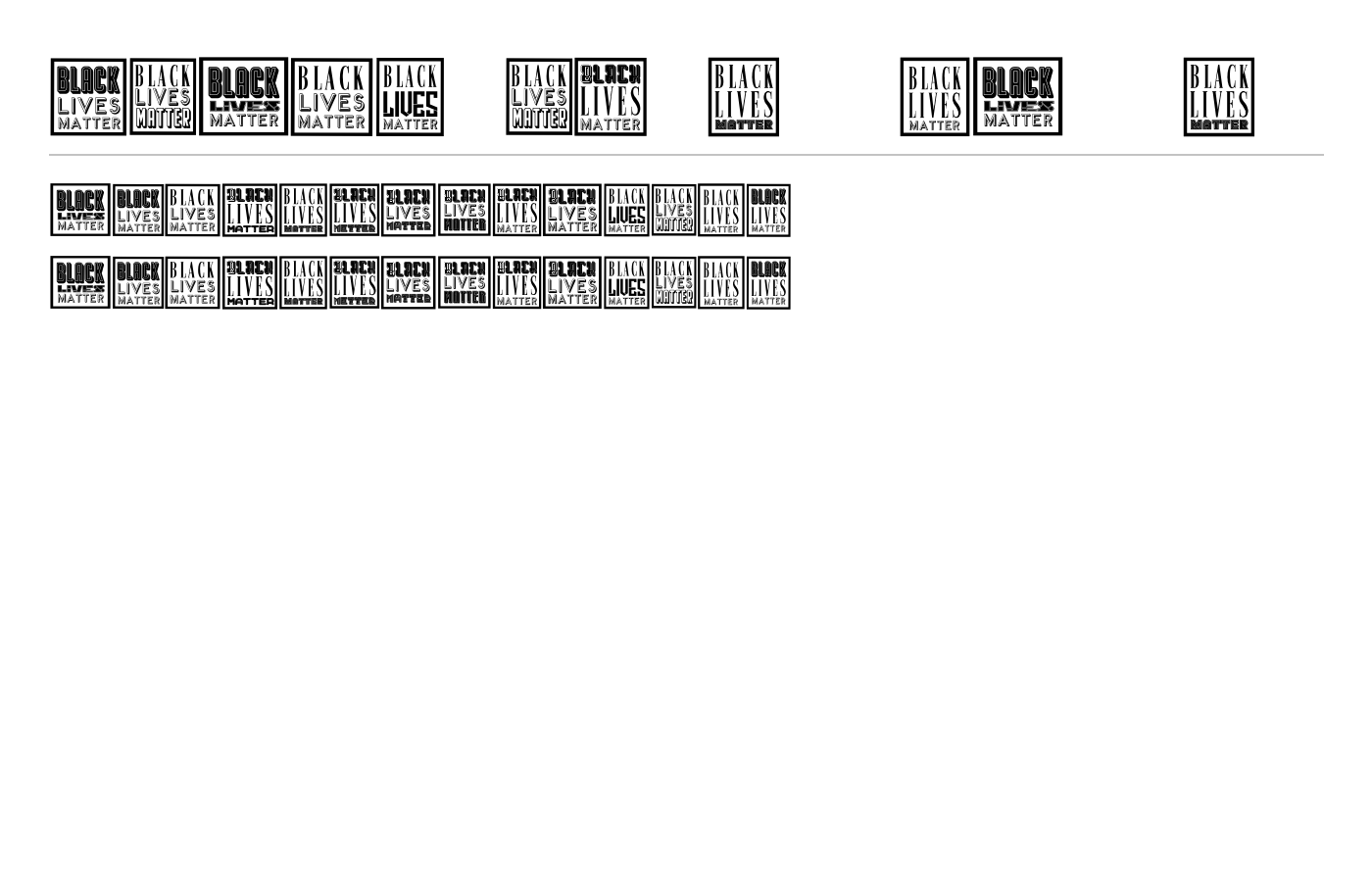
Black Lives Matter Font is a bold, condensed sans serif typeface with strong geometric influences, featuring high contrast and solid, block-like letterforms that command attention. Its sharp edges and tight spacing create a sense of urgency and strength, making it ideal for powerful headlines, impactful posters, and activist branding where a clear, assertive voice is essential. This font communicates seriousness and solidarity, fitting perfectly with causes and designs that demand visibility and authority.
Black Lives Matter Font
About Black Lives Matter Font
| Font family | Black Lives Matter Font |